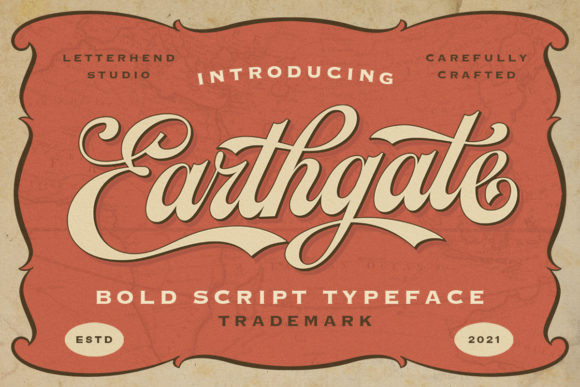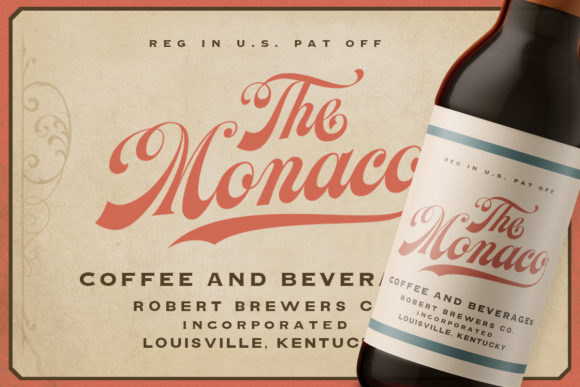
Earthgate Font
Earthgate is a gorgeous and bold handwritten font, crafted to give your headlines and logotype projects a stylish, retro touch. This font reads as strong, confident, and dynamic and can add tons of nostalgic character to your designs.